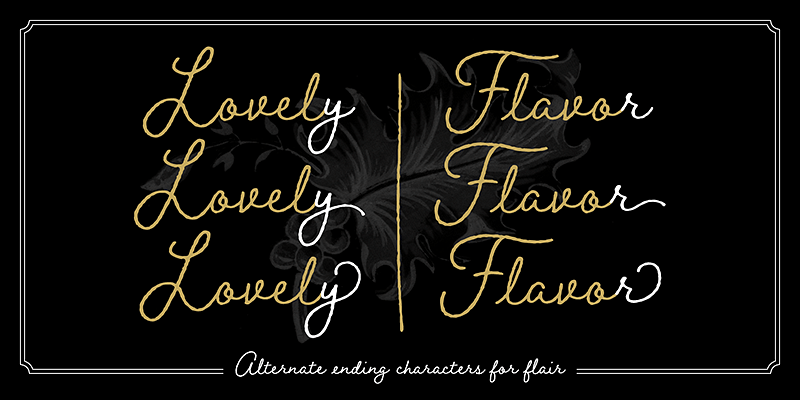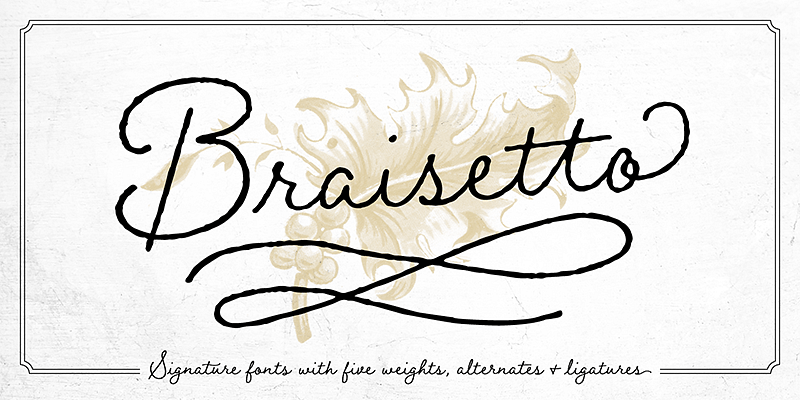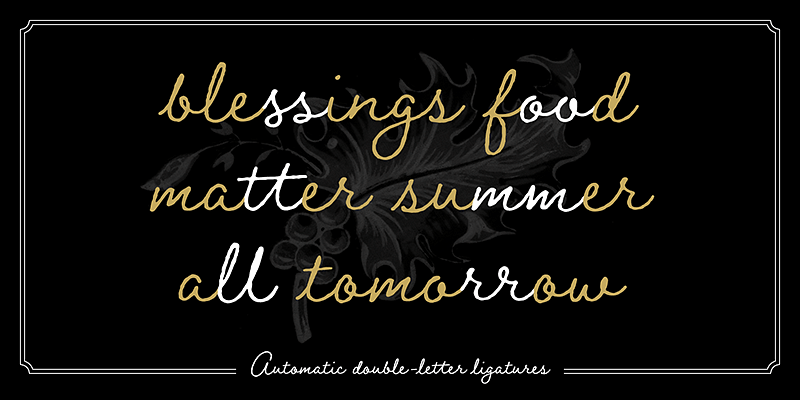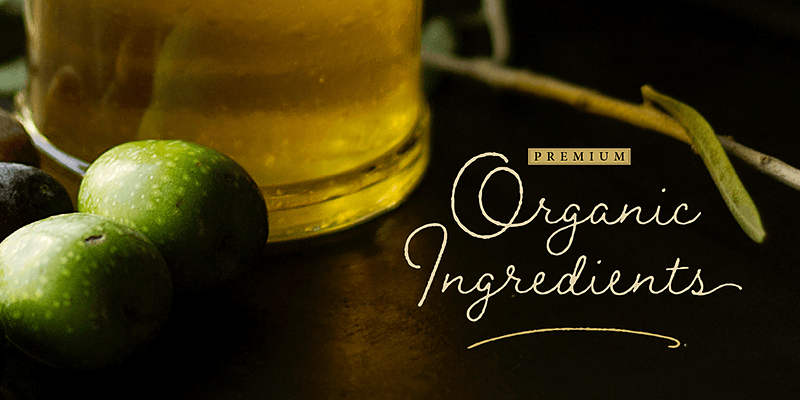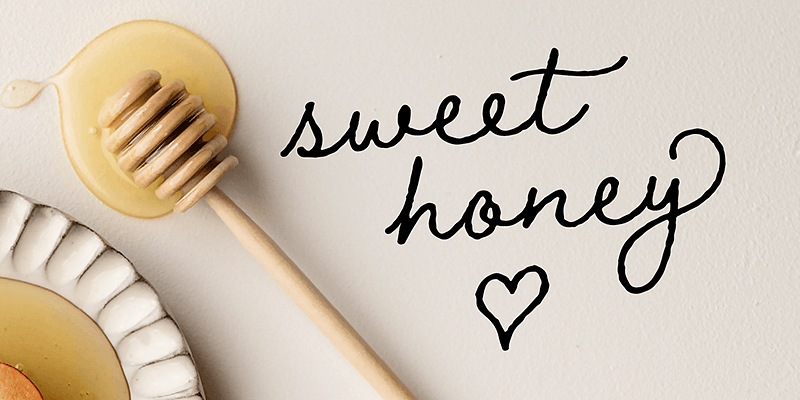
Braisetto is a handwritten signature font with alternates and ligatures. Inky and expressive yet readable and functional, this typeface is designed to look personal and be useful.
Adam Ladd
With an emphasis on typefaces designed to be useful and unique, Adam Ladd crafts fonts with a diverse appeal that ranges across modern and vintage aesthetics in sans serif, serif, and script styles. His experience as art director at two of the most revered design publications — HOW and PRINT magazines — informs his work as a type designer. Individuals and large companies in many industries have licensed his fonts, including Disney, Whole Foods, Blizzard Entertainment, and Penguin Random House.